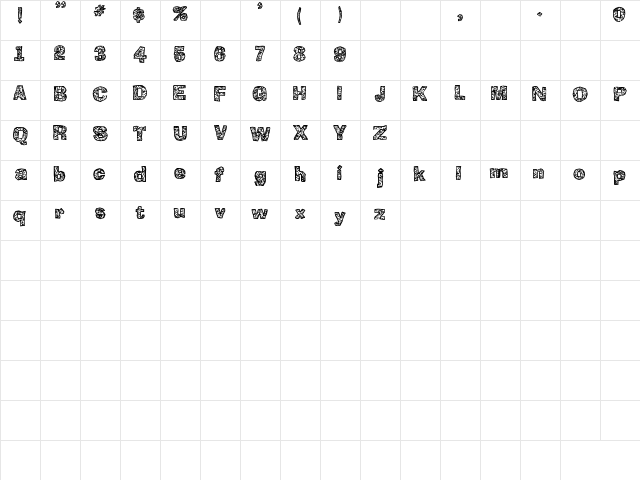
FD Textured Regular
Design Context for FD Textured Typeface
FD Textured embraces imperfection — its rough, textured character adds raw authenticity to designs that want to feel lived-in and unconventional.
A strong fit for alternative music projects, graffiti-adjacent design, and anything that deliberately resists polish.
Pro Tip: Use FD Textured at larger sizes where the texture and irregularity of each letterform can be clearly seen — it loses its character at small sizes.